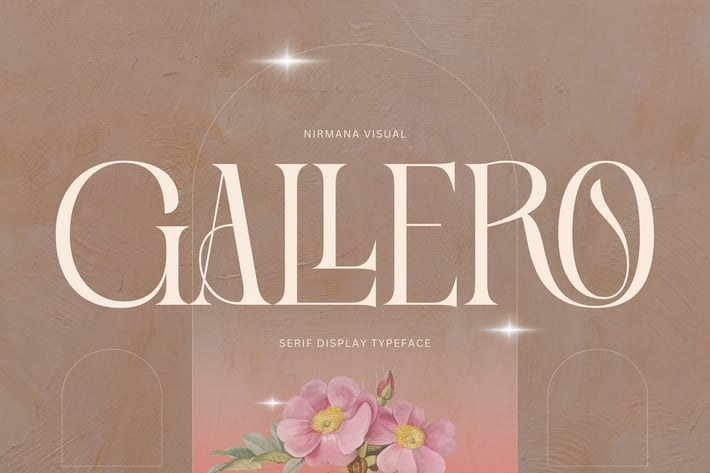
Gallero Vintage - Logo Font
Gallero Vintage is a luxury typeface.
full set of lowercase and uppercase letters, numerals and punctuation, multilingual symbols.
Very suitable for the title, logo, typography, clothes, magazines, brochures, packaging and much more for your design needs, making your designs more modern and professional.